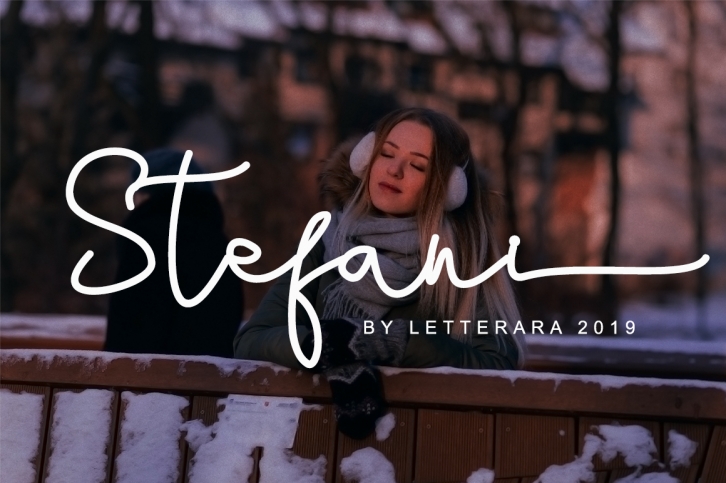
Hi Font Lover! This is a modern calligraphy font with the current handwriting style.
Stefani is a stylish unique handwritten font and easy to remember.
It's great for unique branding, photo overlays, watermark, business card, invitations, wedding, photography, fashion, etc.
Swashes, Titling alternates, Ligatures
This font is easy to use, the basis if this unique font is it’s simplicity.